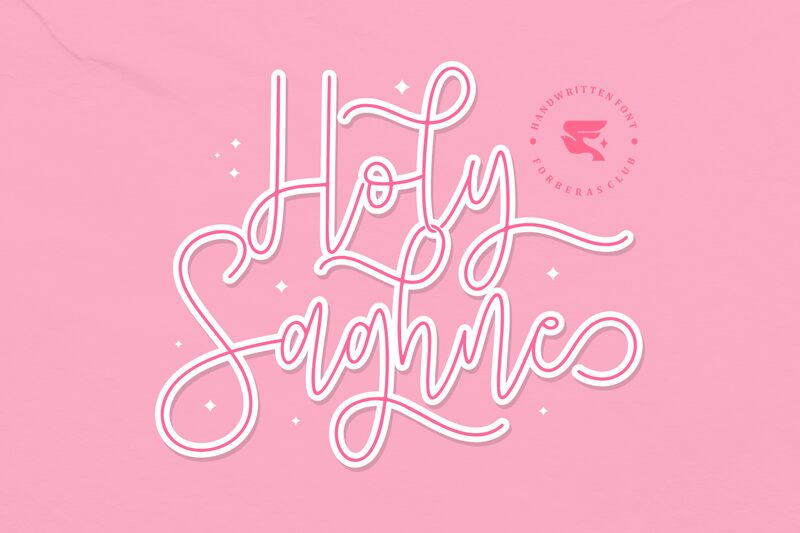
Holy Saghne, designed by Forberas Club, is a captivating handwritten font that exudes elegance and charm. With its extra-light weight, this font is perfect for whimsical projects such as wedding invitations, greeting cards, and feminine branding. Its delicate strokes and graceful curves will add a touch of sophistication to any design. Whether you're creating a romantic logo or crafting a dreamy blog header, Holy Saghne's ethereal beauty will leave a lasting impression on your audience. Let this enchanting font weave its magic into your creative endeavors and watch them come to life with grace and style.
Holy Saghne